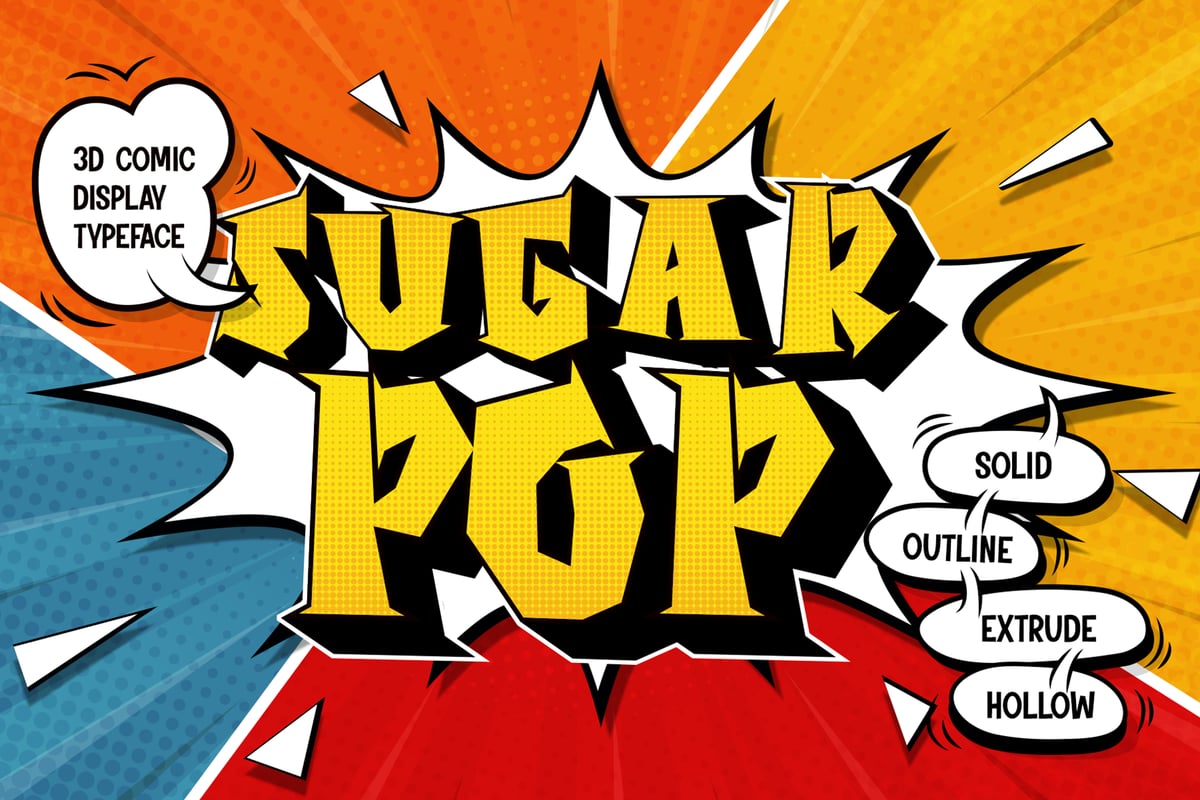
Sugar Pop Solid
Sugar Pop is a vibrant 3D layered comic font that bursts with playful energy and dynamic style. Perfect for designers looking to add a fun, eye-catching element to their projects, this font brings a lively, cartoonish flair to any design.